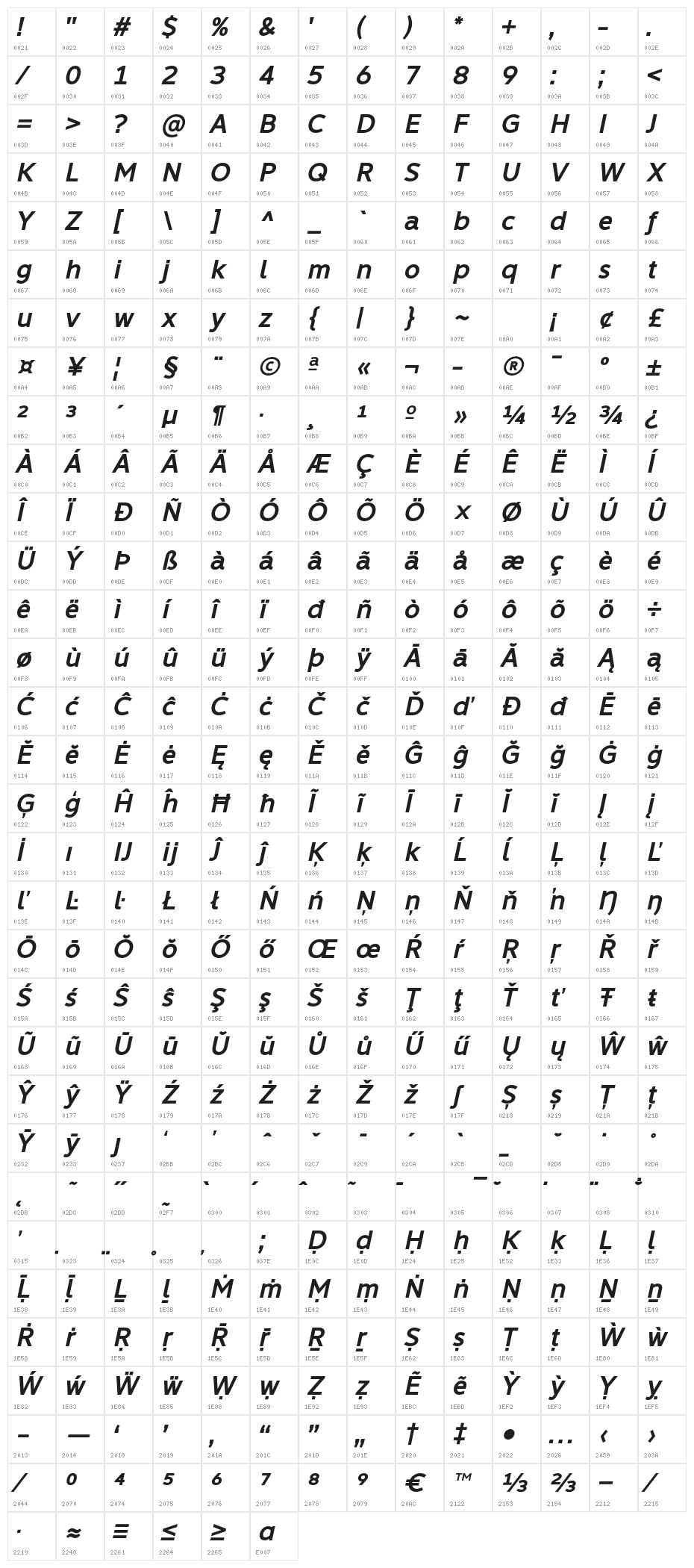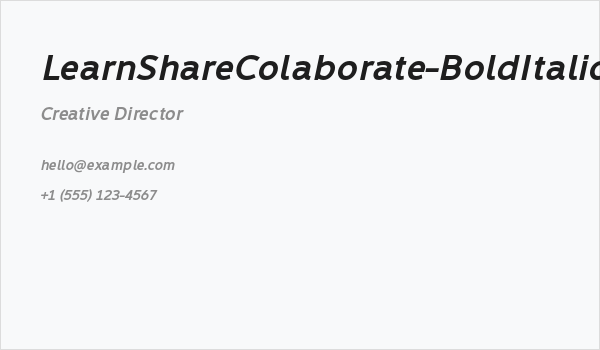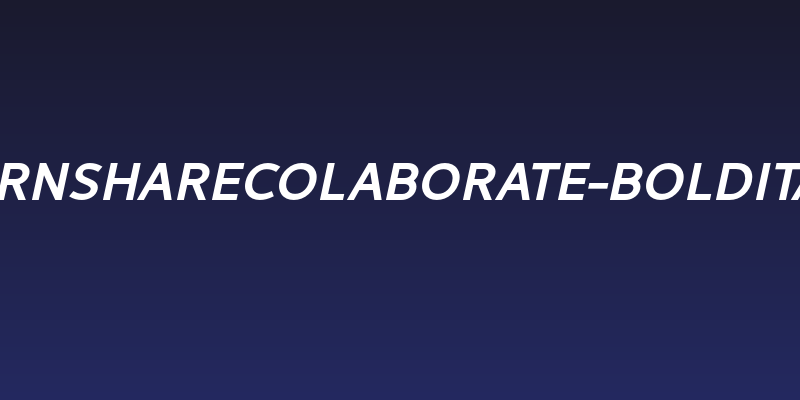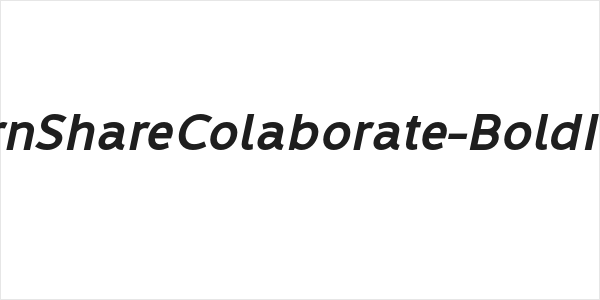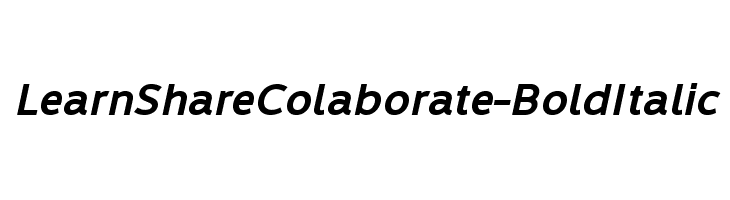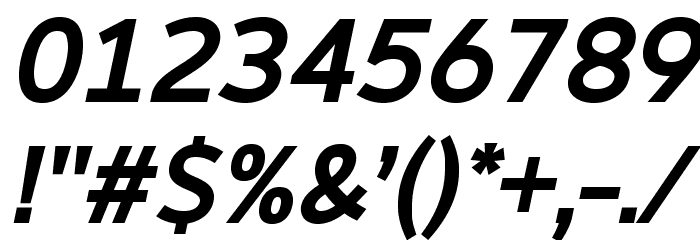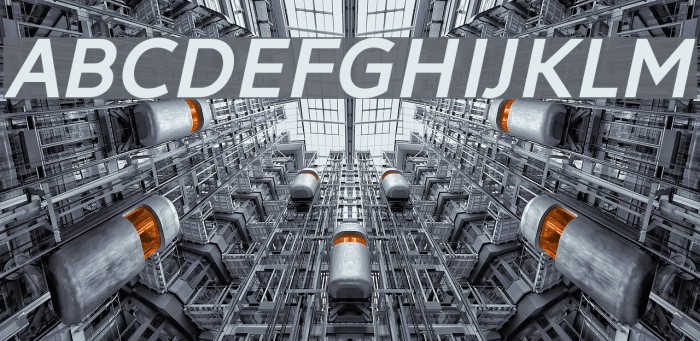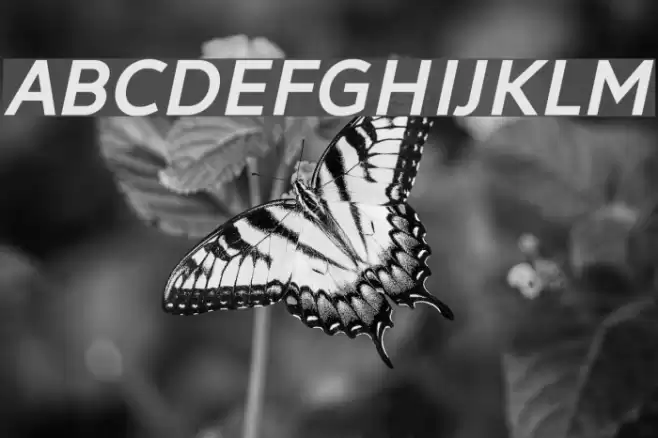
LearnShareColaborate-BoldItalic Font
LearnShareColaborate-BoldItalic Description
This font exhibits a modern and sleek design with a bold and italicized style. The characters are slightly slanted, adding a dynamic and forward-moving appearance. The strokes are consistent and smooth, providing a clean and professional look. The uppercase and lowercase letters maintain a uniform height, ensuring readability and balance. The numerals are clear and distinct, matching the overall style of the alphabet. Special characters are well-integrated, maintaining the font's cohesive aesthetic. This font is versatile, suitable for various digital and print applications, offering a contemporary feel.
| Use Case | Headlines, Logos, Digital Media |
| Proposed Projects | Ideal for branding, advertising, digital media, and editorial design projects. |